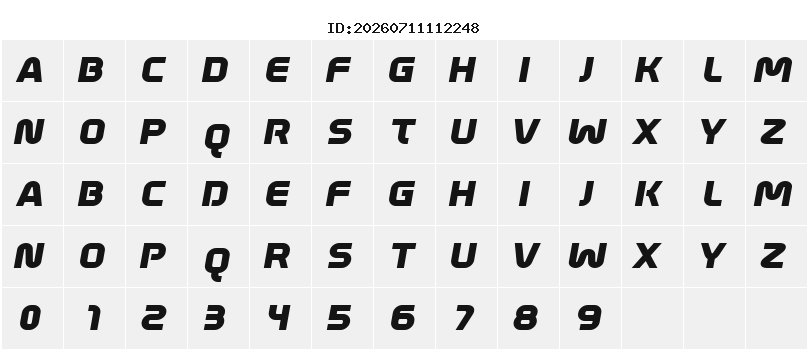
Mathmos Original Preview
• Font Name: Mathmos Original
• Full Font Name: Mathmos Original Italic
About Mathmos Original.ttf
Mathmos Original.ttf is a modern, elegant sans-serif font designed for ultimate readability and visual harmony. Perfect for branding, headlines, web design, and print materials.